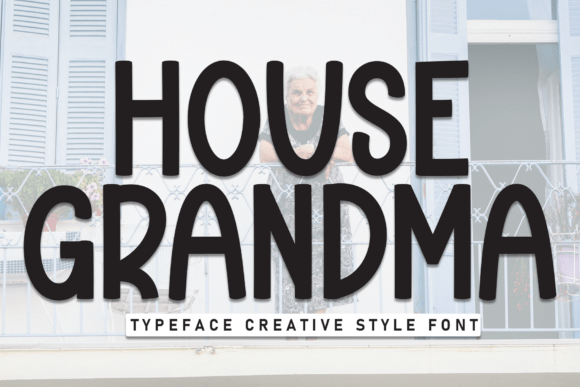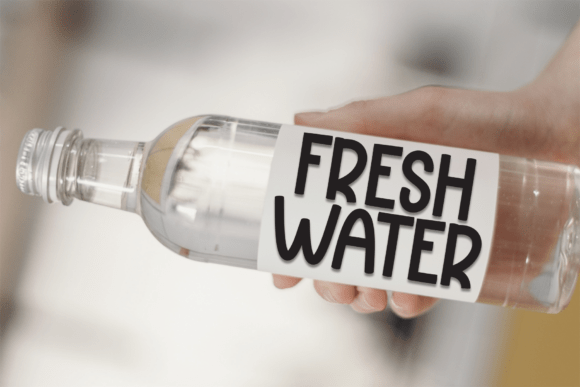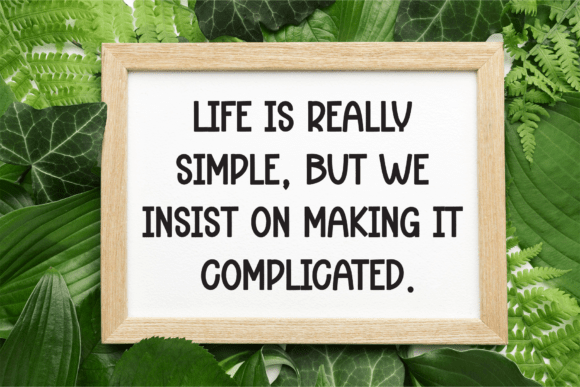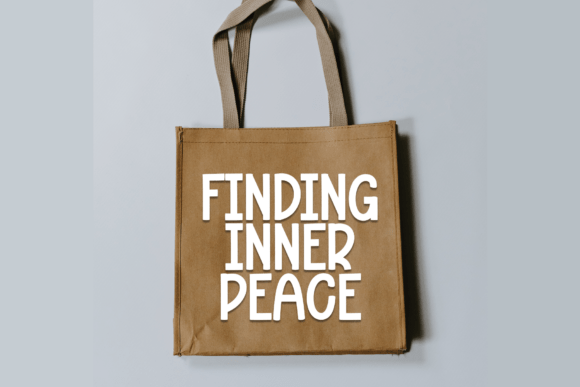
House Grandma Font
About the House Grandma Font
The House Grandma Font offers a perfect balance of form and function for your design needs. Introducing a charmingly playful and delightfully friendly handwriting display font that Jazzes up your creative projects with a spark of fun! This adorable font is the perfect match for crafting wedding invites, greeting cards, or any design craving a pinch of joy. It effortlessly turns the mundane into something delightful and heartfelt. Embrace the enchanting allure of this handwritten font that leaves a delightful imprint on any design it graces!
House Grandma Font is best suited for headlines, short text blocks on invitations or greeting cards, and logos requiring a friendly, approachable feel. Its playful nature makes it ideal for branding projects targeting a younger demographic or businesses emphasizing warmth and approachability. Avoid using it for body text or long paragraphs; its informal style isn’t legible at smaller sizes or in extended use.
Pairing it with a clean sans-serif like Open Sans for body text creates a balanced contrast, while a classic serif like Garamond adds a touch of sophistication for more formal applications. For a more playful look, consider pairing it with a rounded geometric sans-serif such as Lato.
The font’s core personality is cheerful and approachable, conveying a sense of handmade charm and nostalgic friendliness. It’s not suitable for projects requiring sophistication or seriousness.
House Grandma Font Usage Examples
House Grandma Font Example